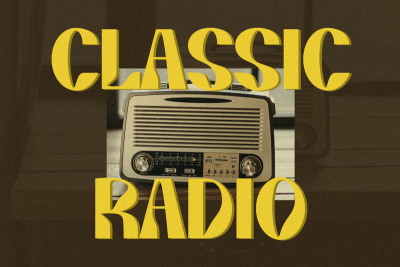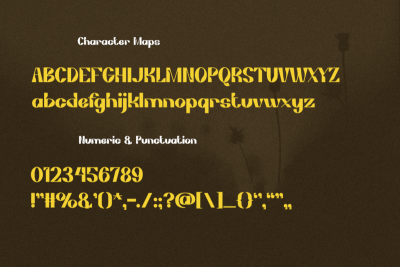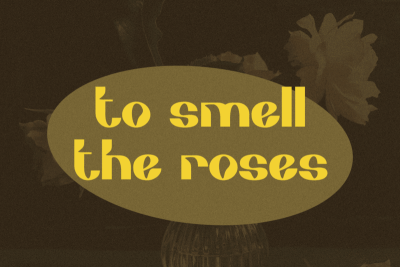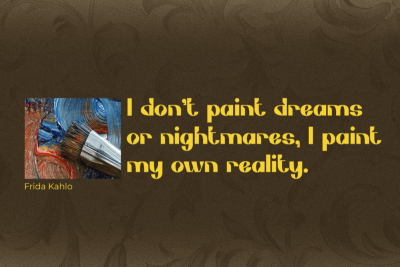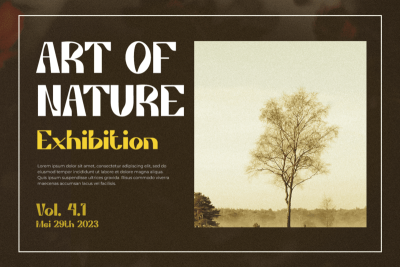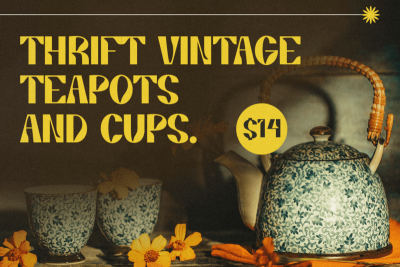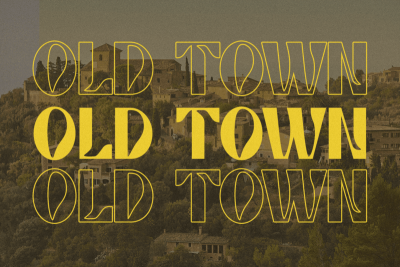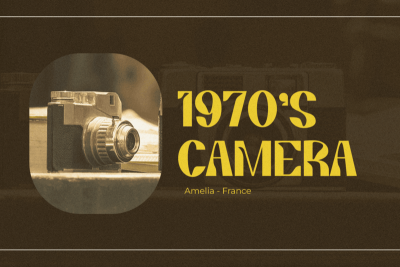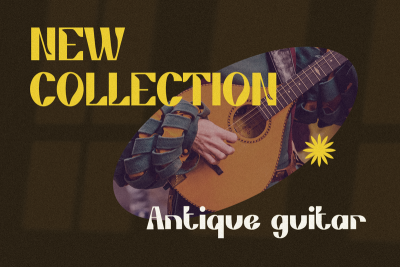
Instagram Font ARCHIONITY
ARCHIONITY
Instagram Font ARCHIONITY is a bold and modern display font that redefines contemporary design. Its clean, futuristic lines and geometric curves make it stand out, offering a perfect balance of minimalism and sophistication. Designed with digital aesthetics in mind, ARCHIONITY is an ideal choice for Instagram content, where eye-catching visuals are essential. Whether you’re creating stunning posts, stories, or advertisements, this font adds a touch of elegance and creativity.
Furthermore, ARCHIONITY’s structure ensures exceptional readability while maintaining a sleek and stylish appearance. Its sharp angles and smooth contours work harmoniously, making it suitable for both headlines and supporting text. This versatility allows it to shine across various mediums, including fashion branding, luxury packaging, and editorial design. Its premium aesthetic and timeless appeal make it a must-have for designers seeking to elevate their projects.
In addition, ARCHIONITY adapts seamlessly to both print and digital formats. Its modern yet versatile design makes it perfect for creating business cards, event posters, website banners, and product labels. No matter the platform, ARCHIONITY provides a professional look that resonates with audiences. Its ability to blend style and clarity ensures that your message is not only seen but also remembered.
Who Should Use This Instagram Font ARCHIONITY?
ARCHIONITY is perfect for influencers, designers, and brands aiming to make a bold visual statement. For social media marketers, this font is particularly effective for creating high-impact Instagram visuals that captivate and engage audiences. If you’re a content creator in fashion, technology, or lifestyle niches, ARCHIONITY is an excellent tool to enhance your personal branding.
Graphic designers will appreciate ARCHIONITY’s versatility in creating logos, posters, and advertising materials. Boutique agencies and luxury brands can use it to convey exclusivity and innovation in their campaigns. Moreover, editorial teams working on magazines or digital publications can leverage this font for layouts that demand attention.
Additionally, ARCHIONITY is a valuable asset for startups and small businesses seeking to create memorable visual identities. Its sleek design communicates professionalism, making it ideal for presentations, pitch decks, and marketing collateral. Event organizers can also use this font to design invitations, banners, and promotional materials that stand out.
In conclusion, ARCHIONITY is more than just a font—it’s a creative asset that transforms ordinary designs into extraordinary visual experiences. Whether you’re curating Instagram content, designing luxury product labels, or crafting high-fashion editorials, ARCHIONITY ensures your message is delivered with style, clarity, and impact.
• Basic Latin A-Z and a-z